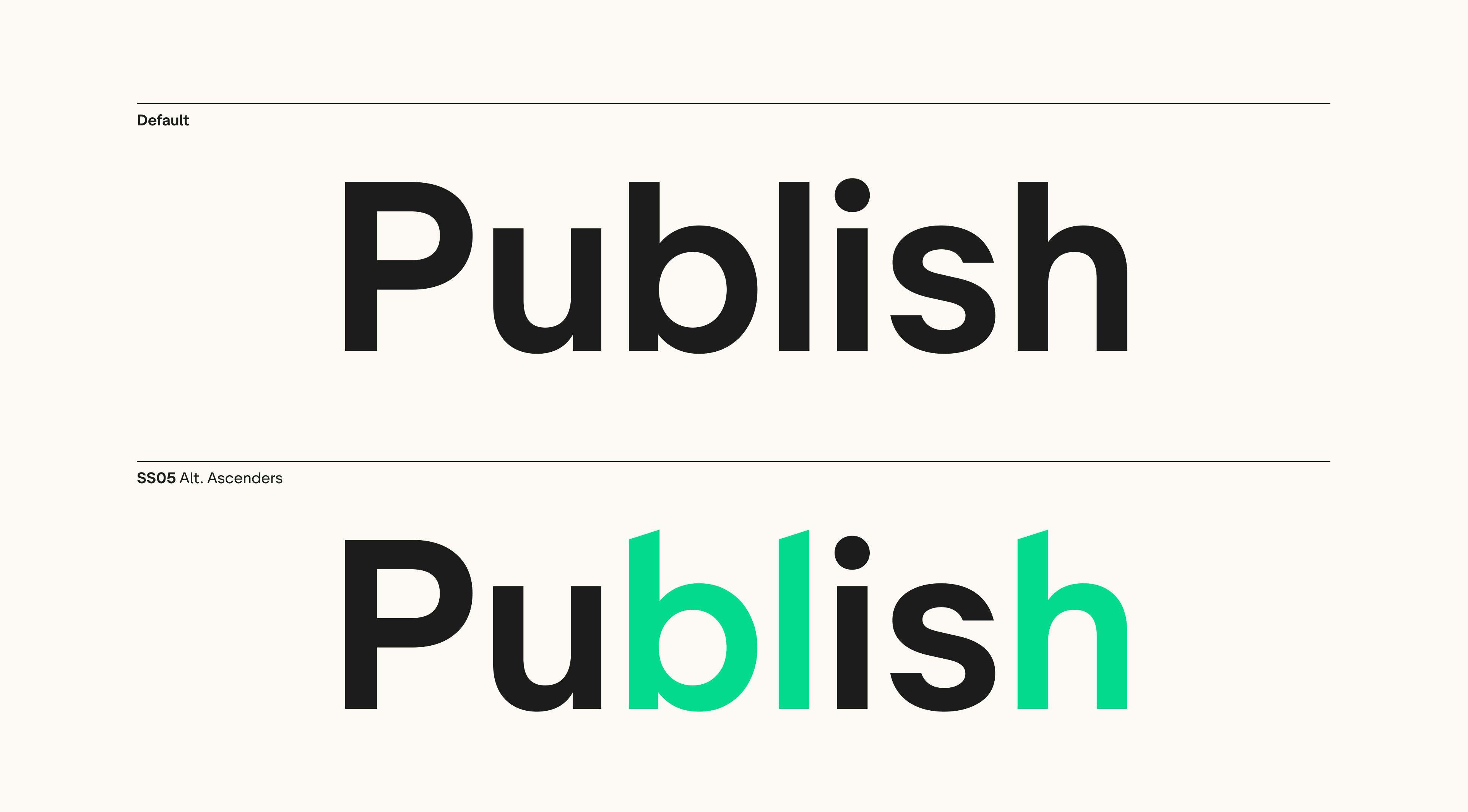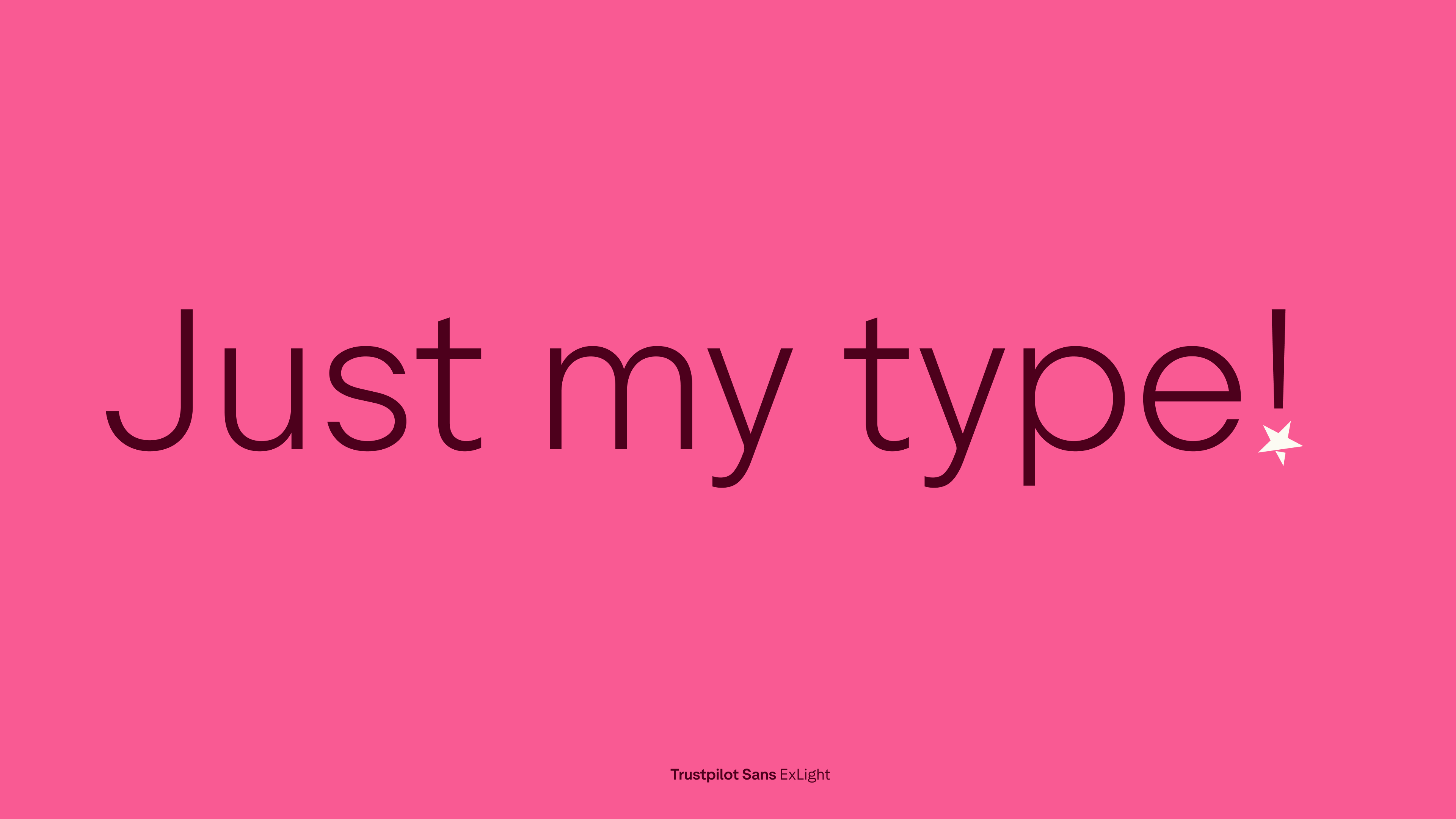
A new star is born!
Trustpilot’s custom typeface is designed with a round and familiar expression. A written voice for sharing opinions, from 5-star delight to 2-star disappointment, and everything in between.
The family features 8 weights with matching italics and includes an extended Latin character set, as well as Greek and Cyrillic language support.
Trustpilot Sans is a geometric sans serif at heart, the typeface features unique details like diagonal terminal cuts. These elements offer a subtle reference to the Trustpilot star logo, adding a distinctiveness to its familiar characters.